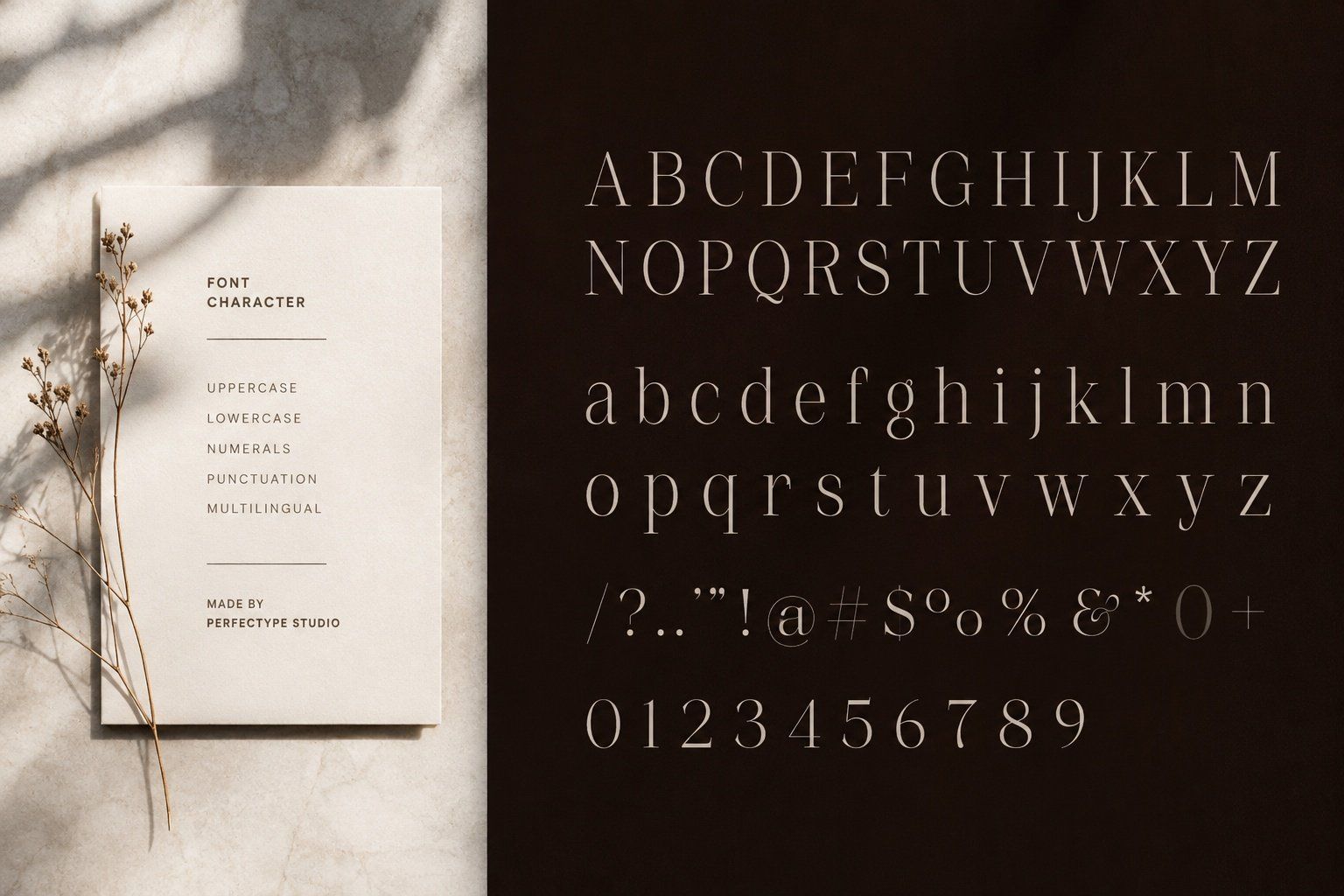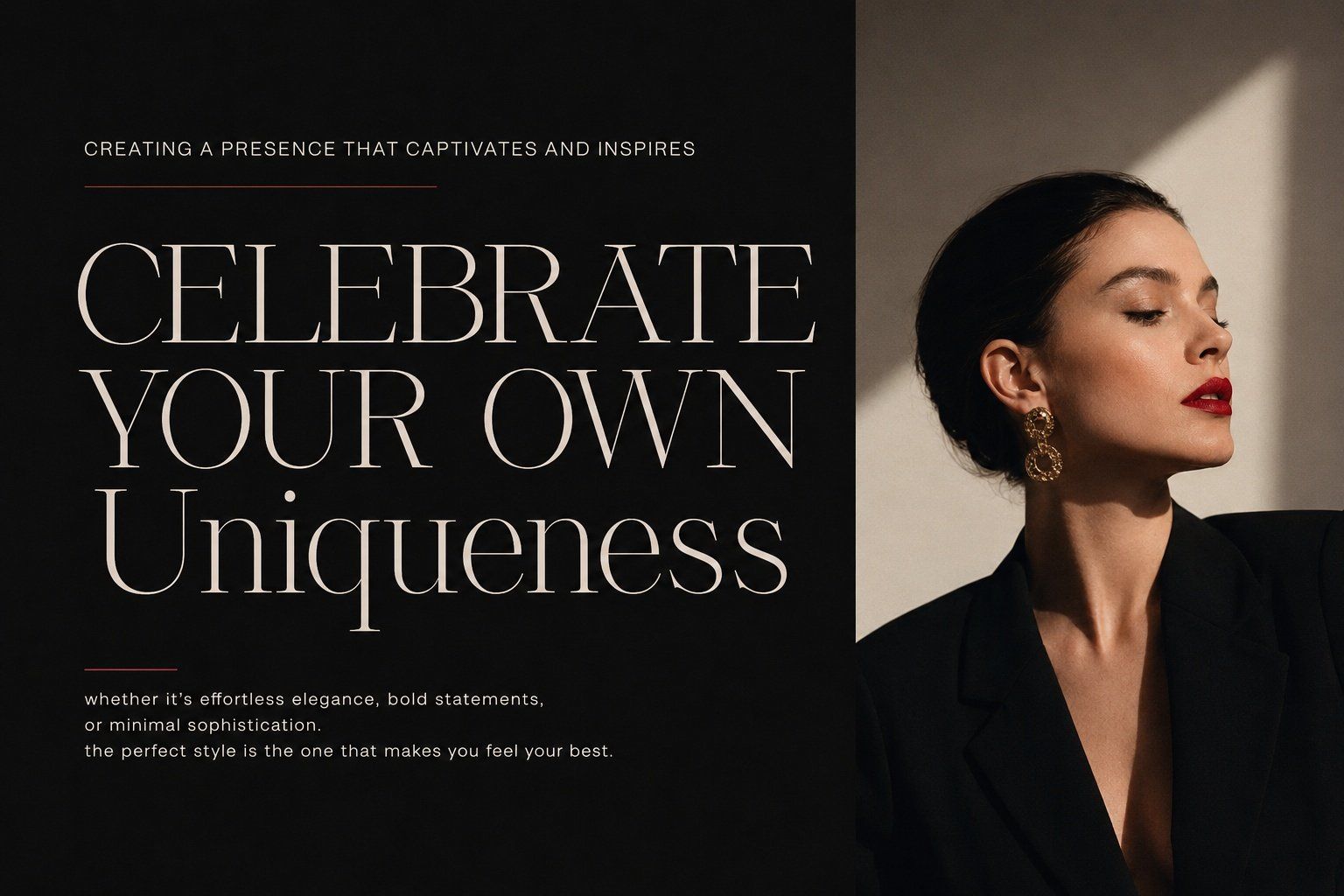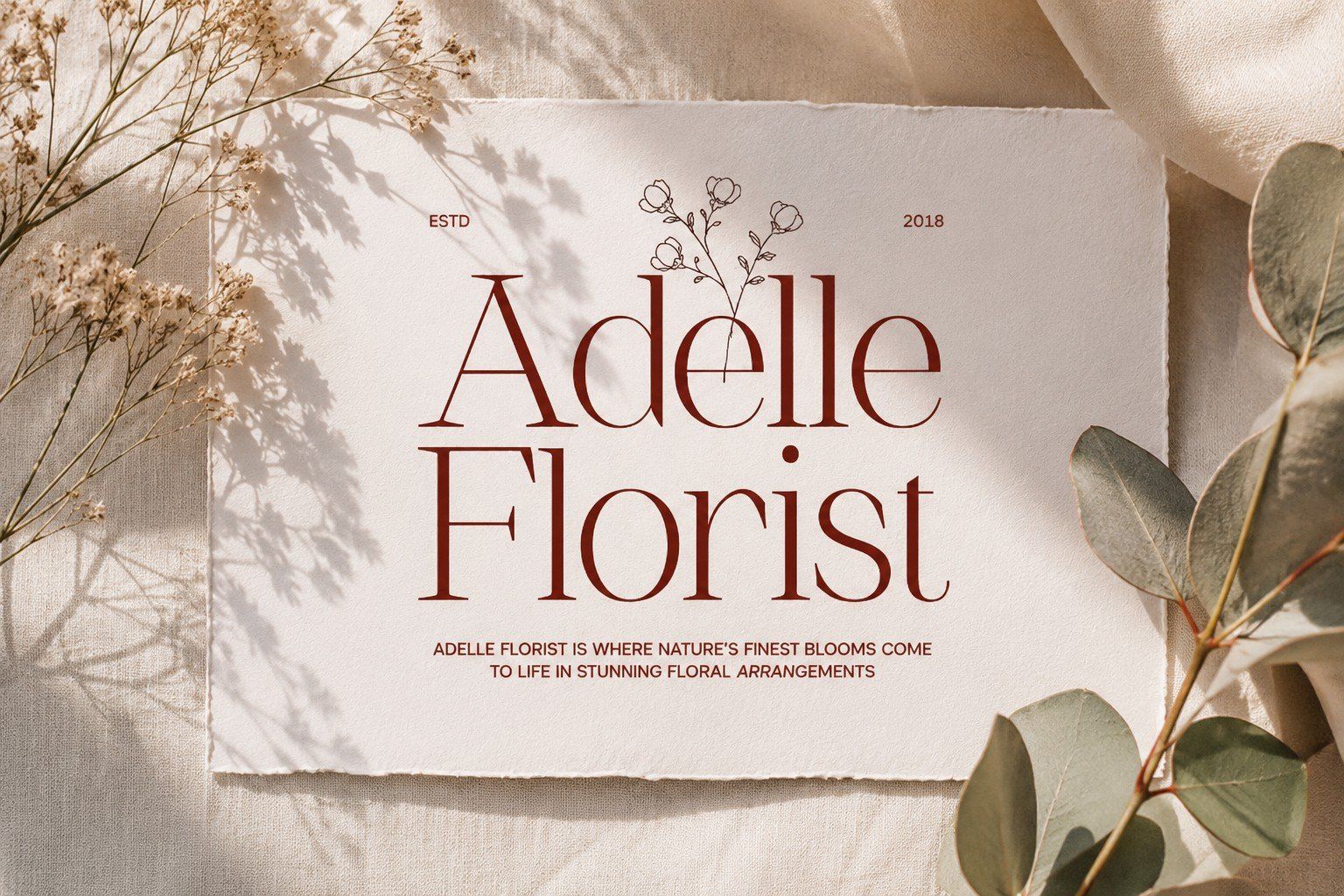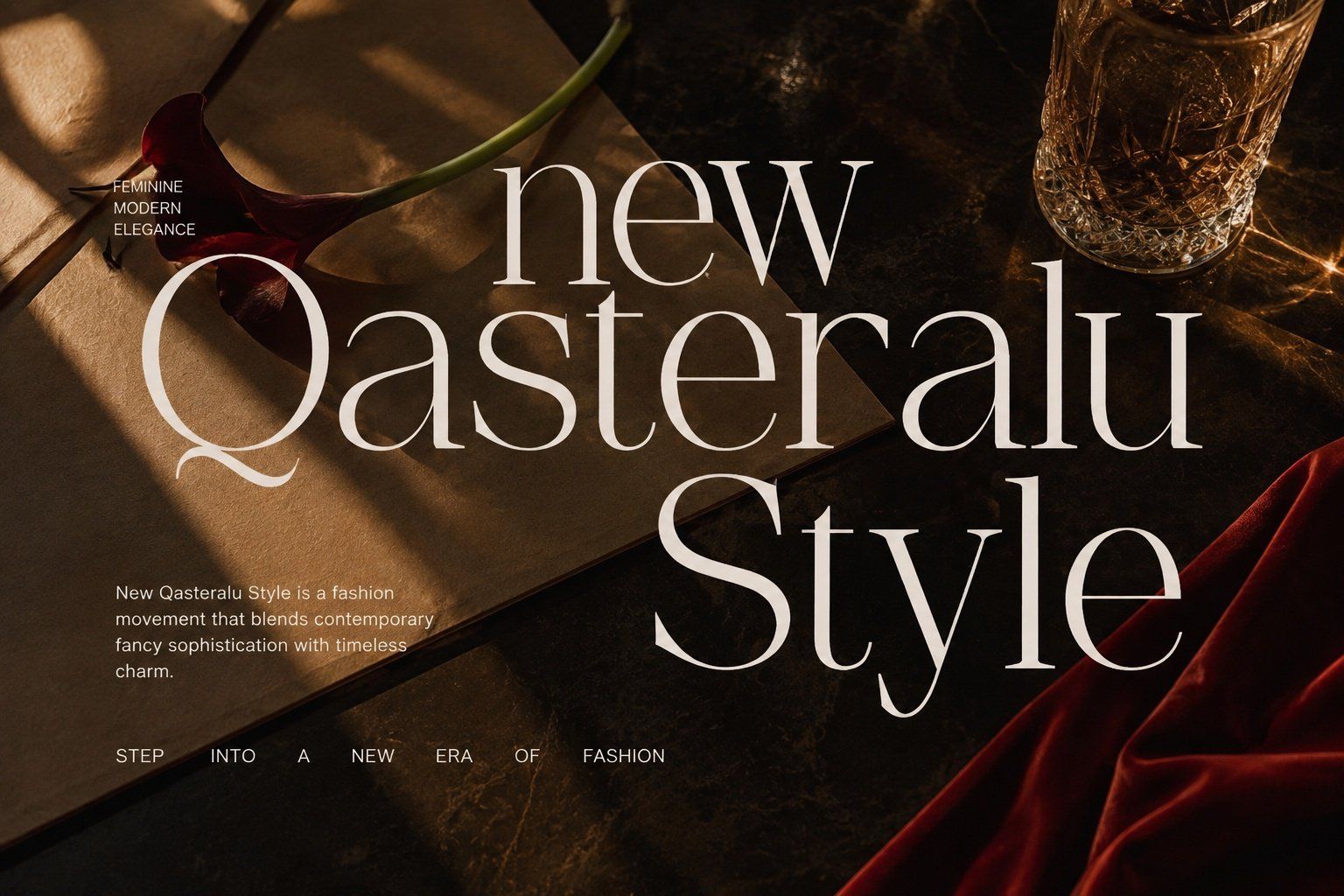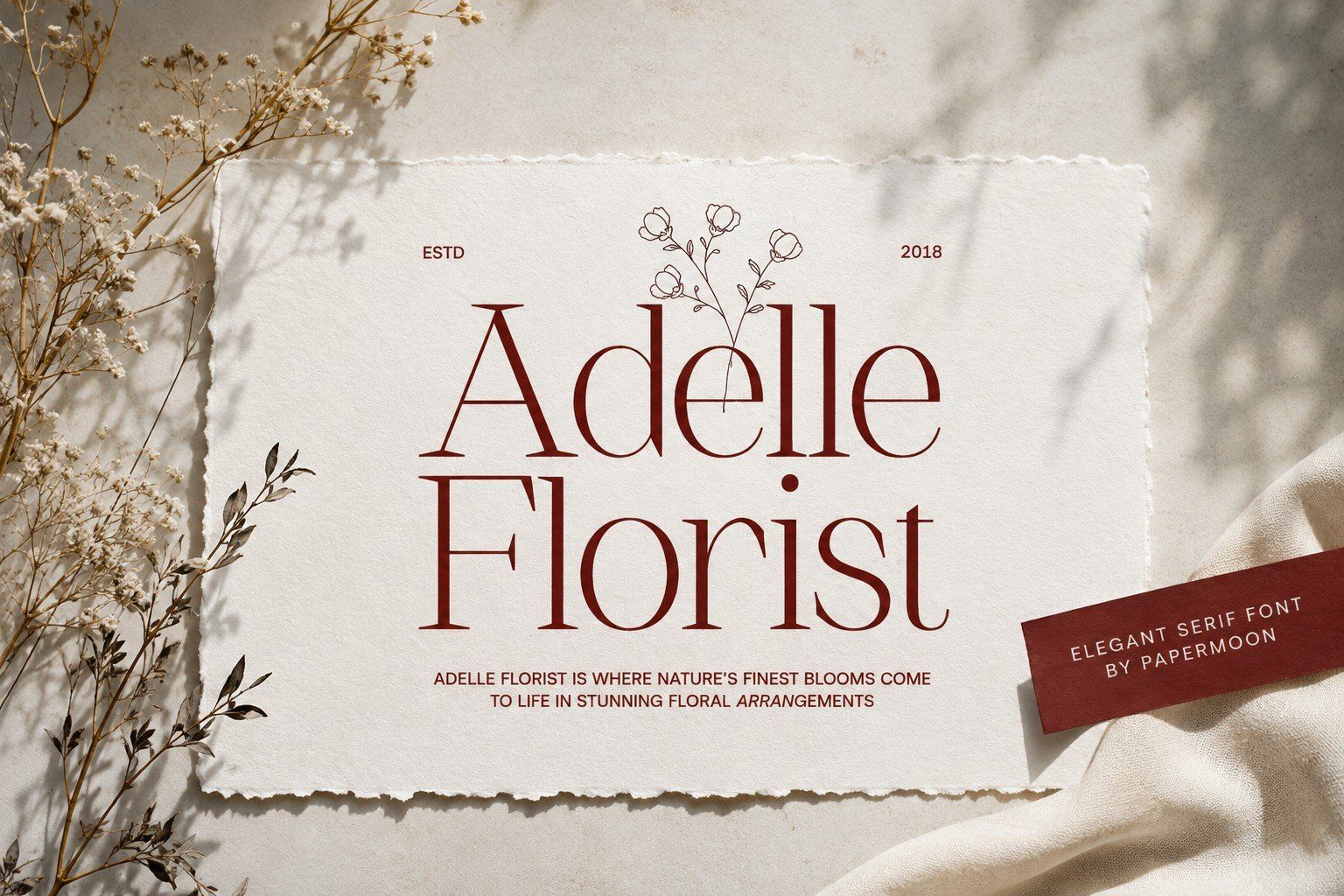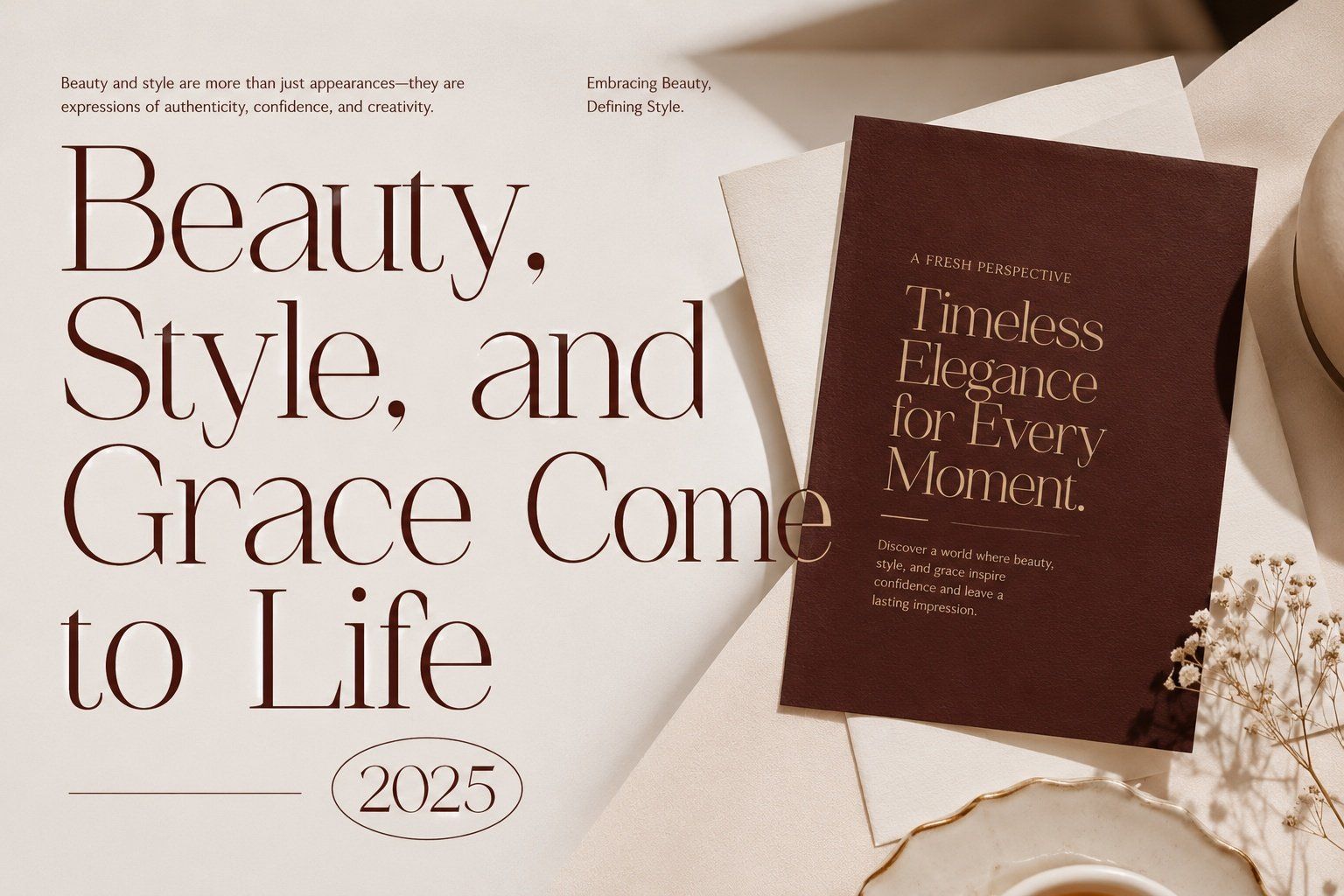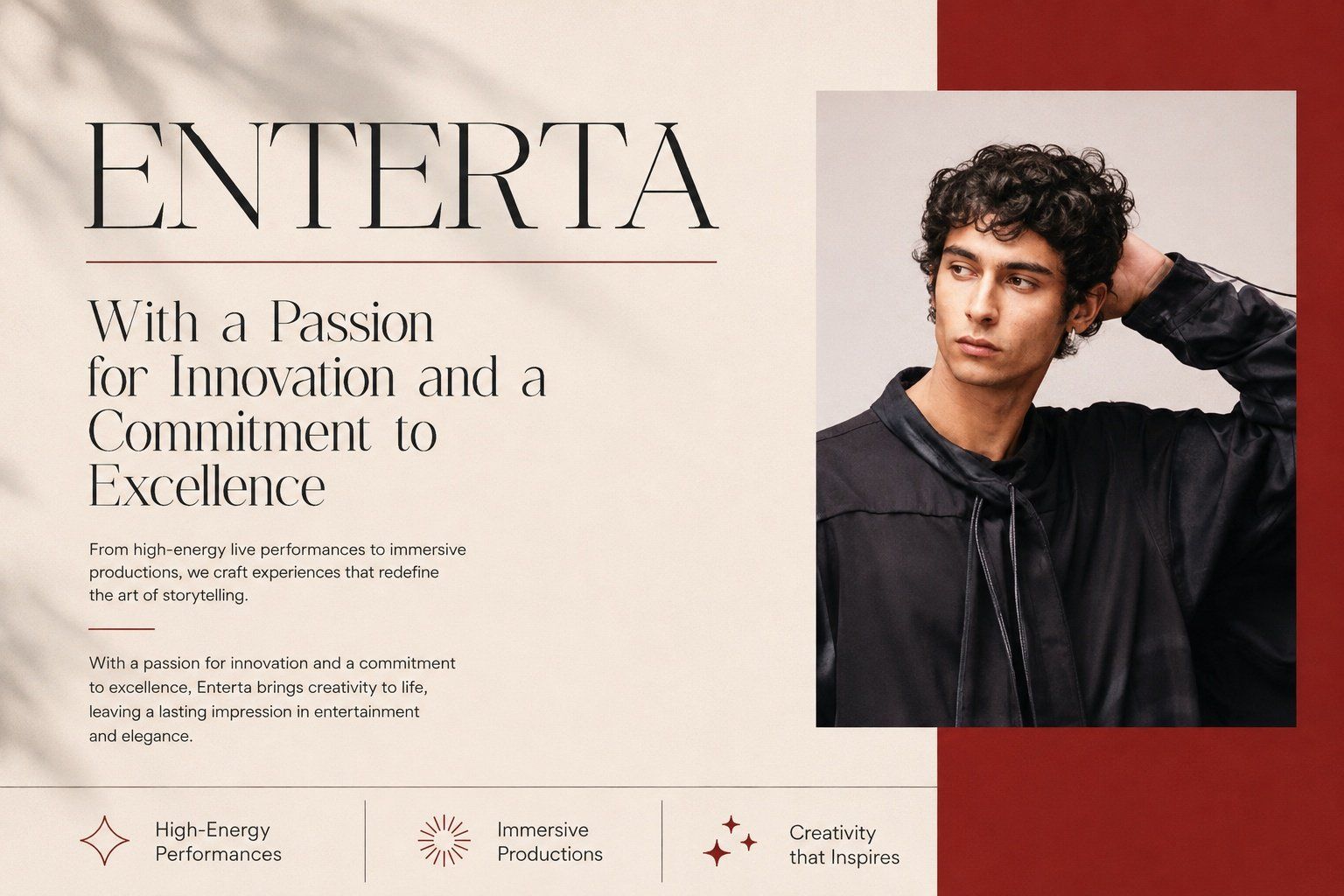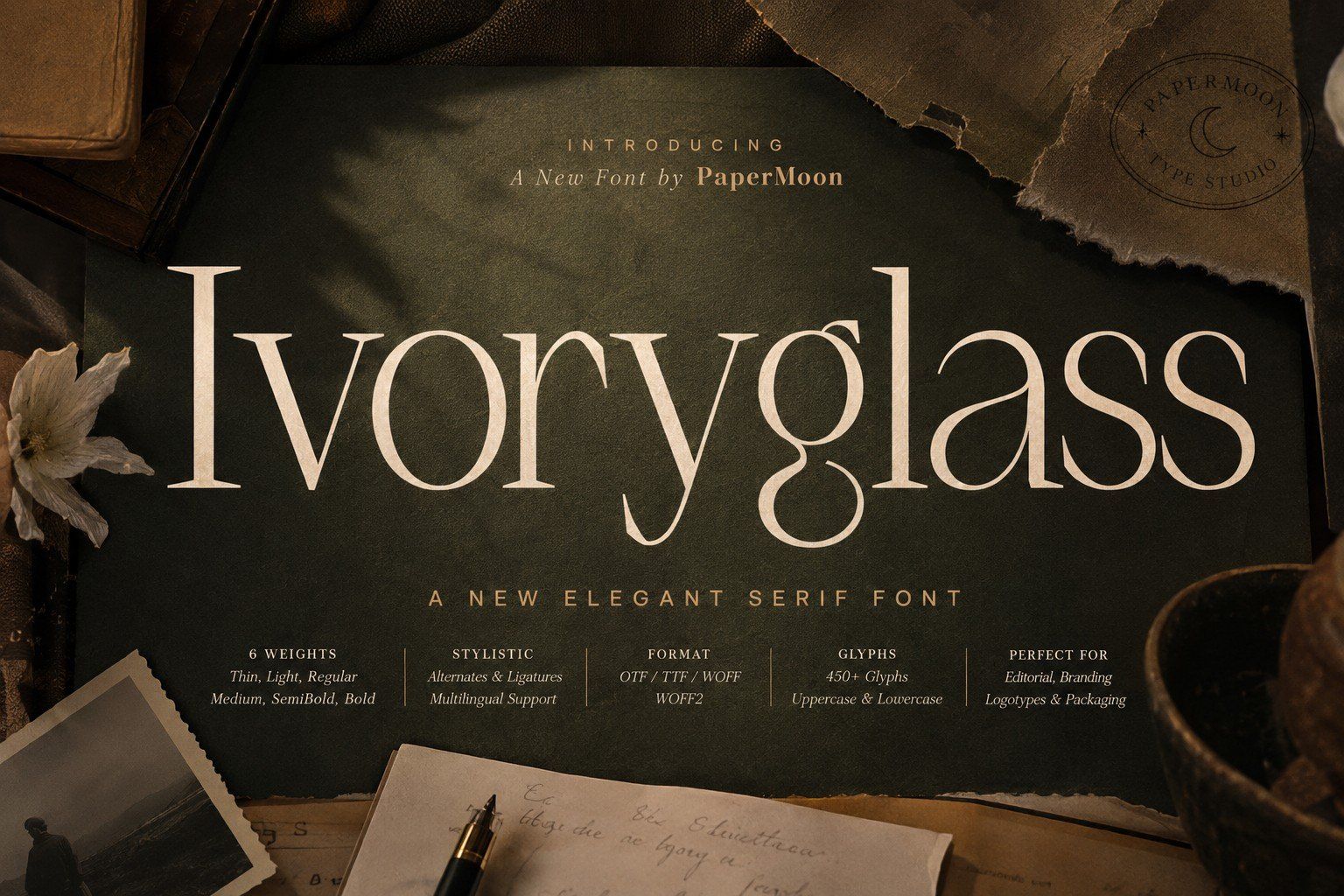
IvoryGlass is a refined minimalist serif font that blends clean elegance with modern sophistication for premium branding and design.
Featuring delicate serifs, balanced letterforms, and measured contrast, IvoryGlass brings a polished typographic presence to luxury logos, fashion editorials, magazine layouts, product packaging, and wedding invitations. The font's unique ligatures and alternate forms provide creative flexibility for custom lettering and distinctive display headlines.
Whether you are crafting a brand identity for an upscale boutique, designing an elegant magazine cover, or building a refined web presence, IvoryGlass combines timeless simplicity with modern clarity to elevate every composition.
Perfect For:
• Luxury Branding & Logo Design
• Fashion & Beauty Campaigns
• Editorial & Magazine Layouts
• Product Packaging & Labels
• Wedding Invitations & Event Stationery
• Social Media Graphics
• Modern Web Typography
• Stylish Ligatures & Alternate Forms